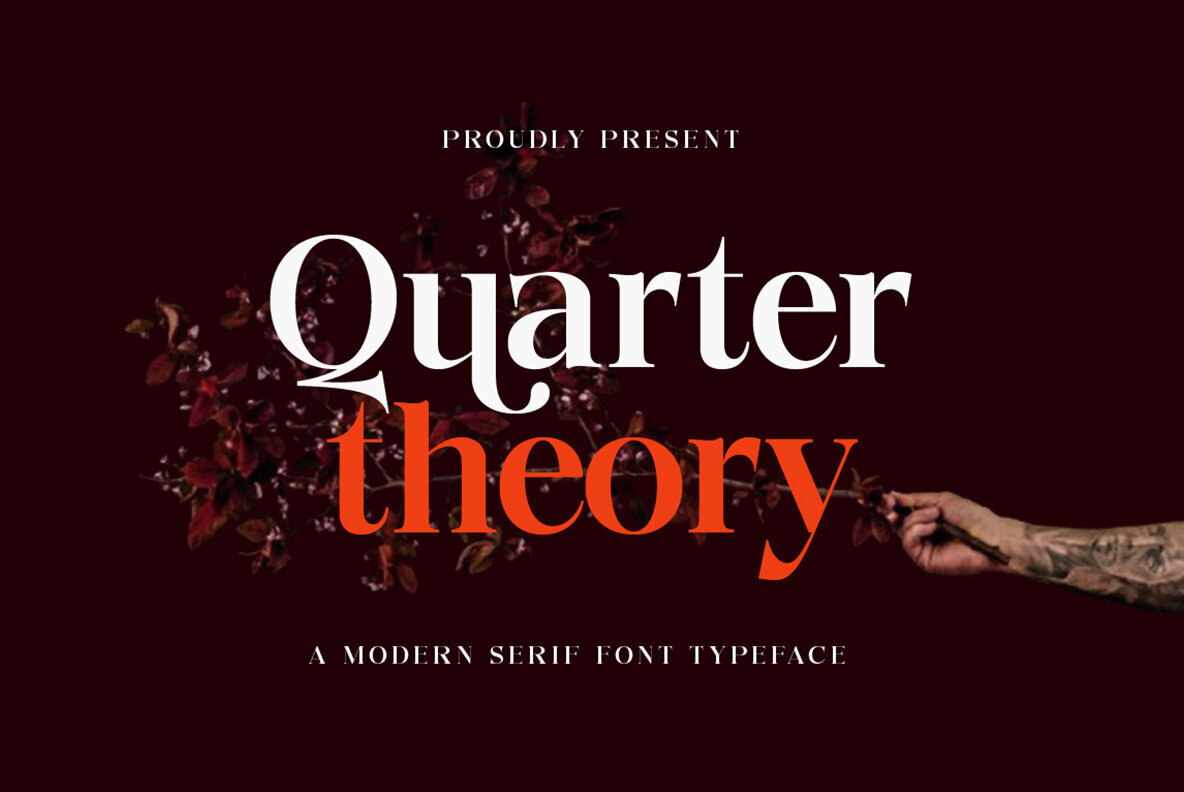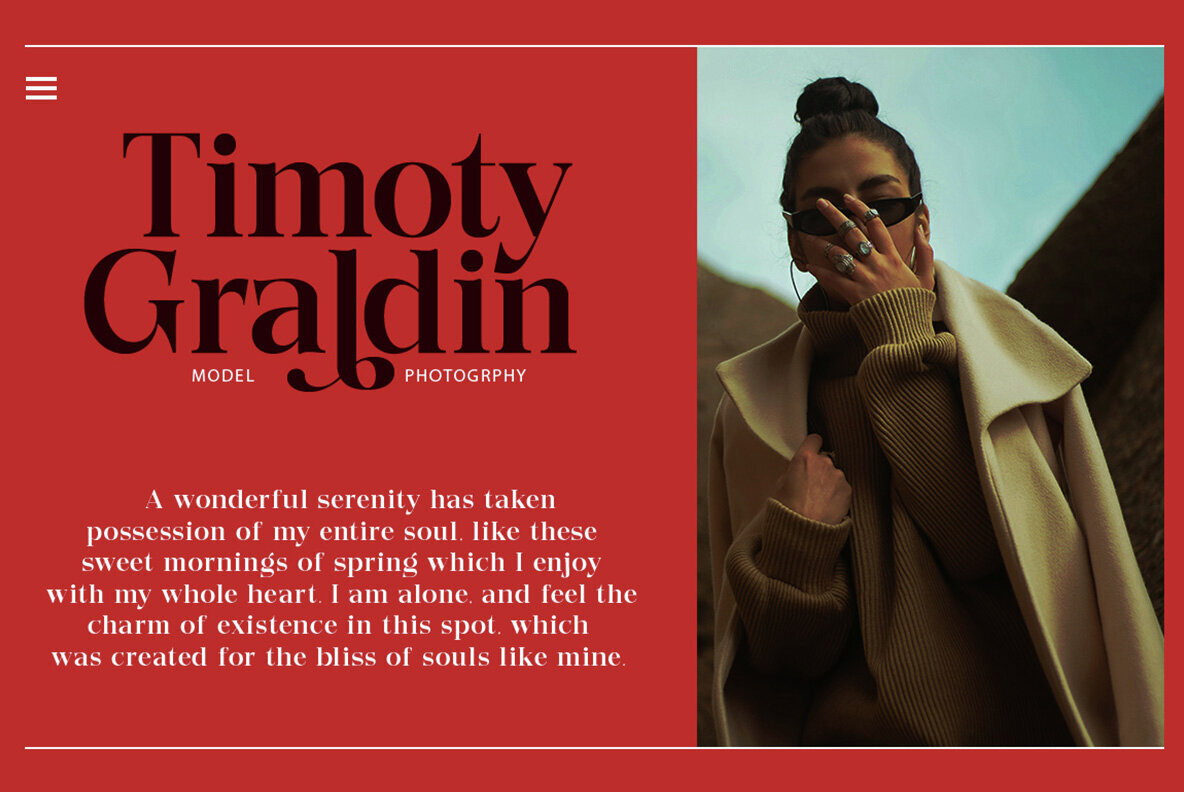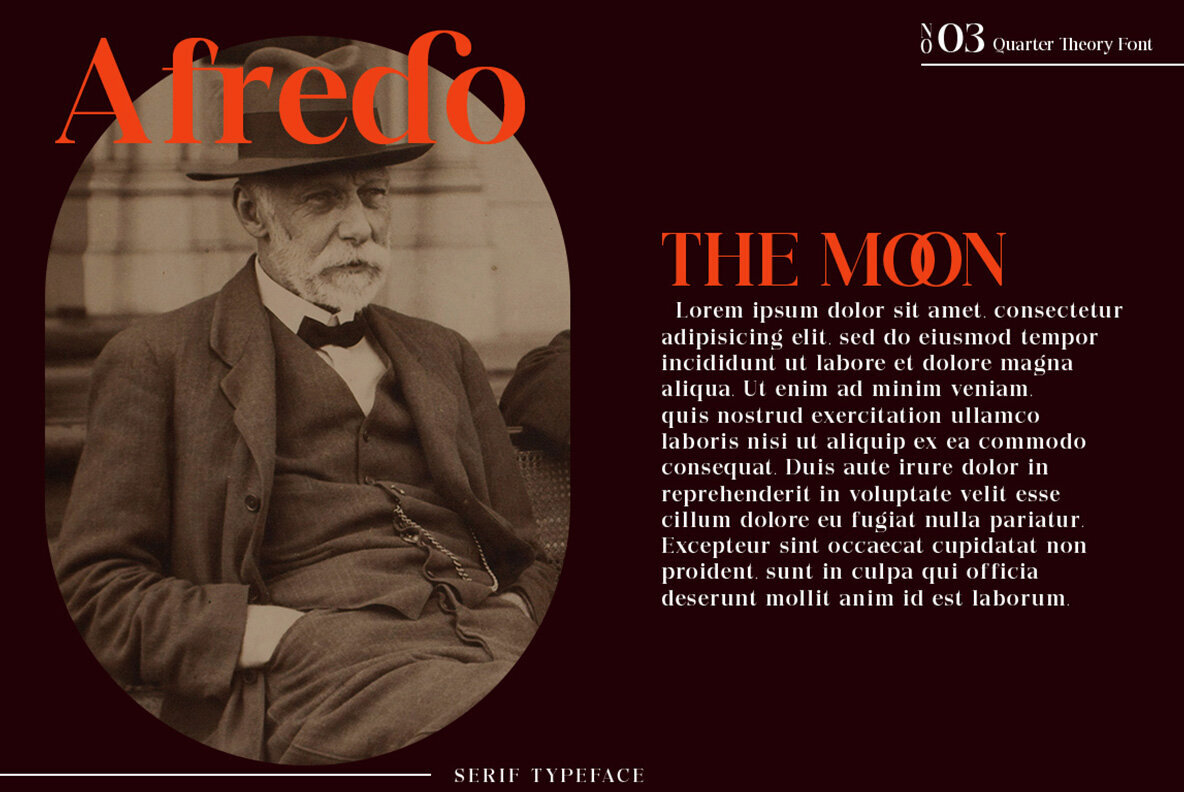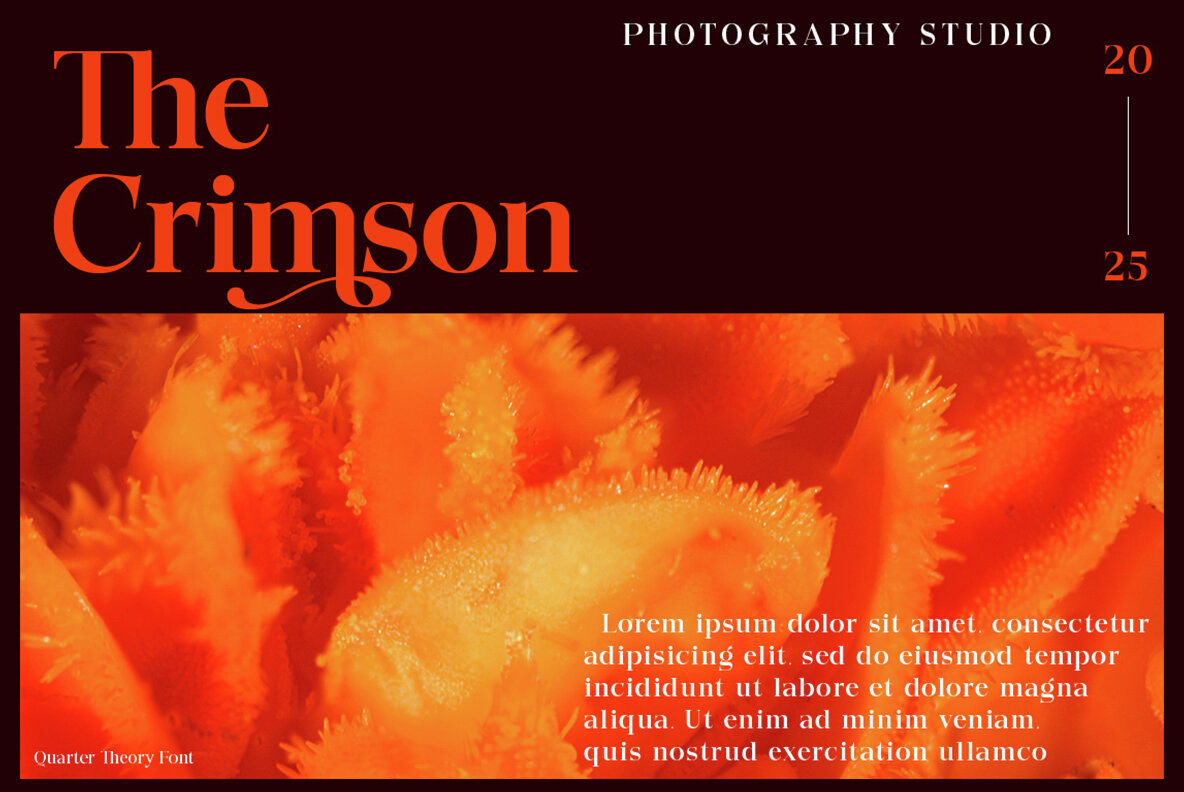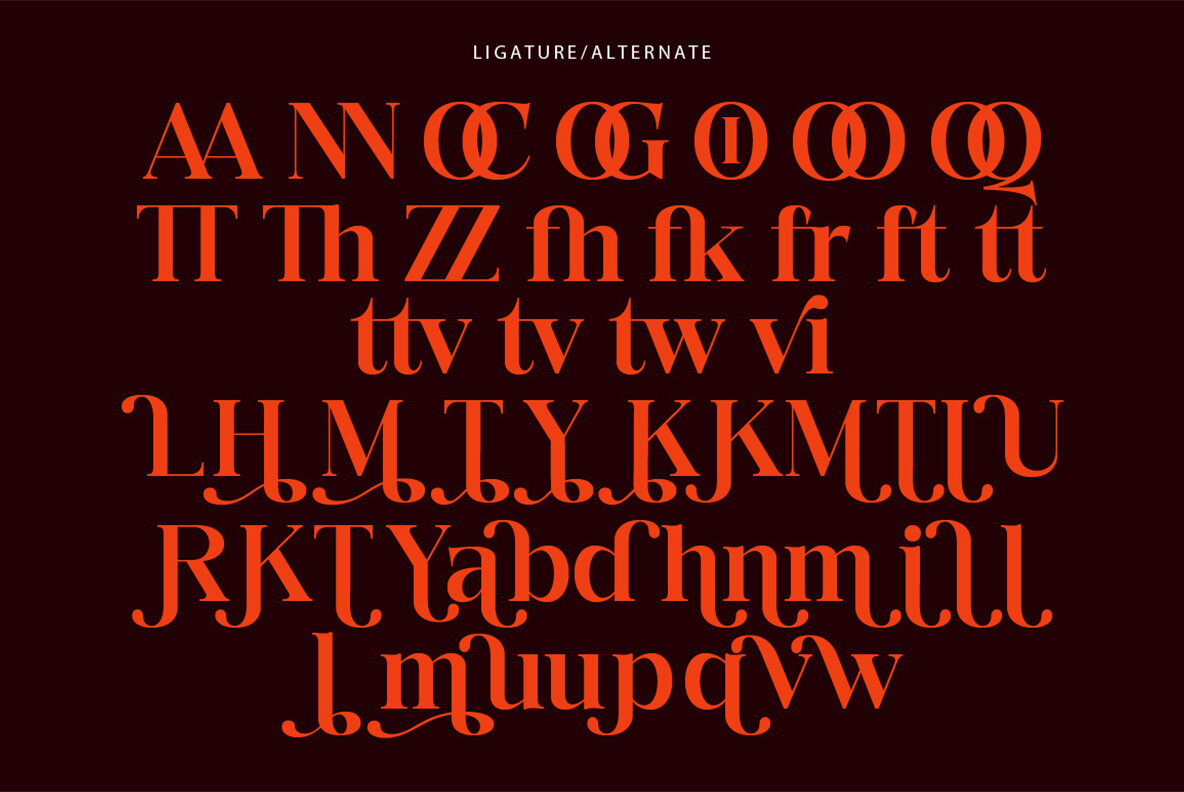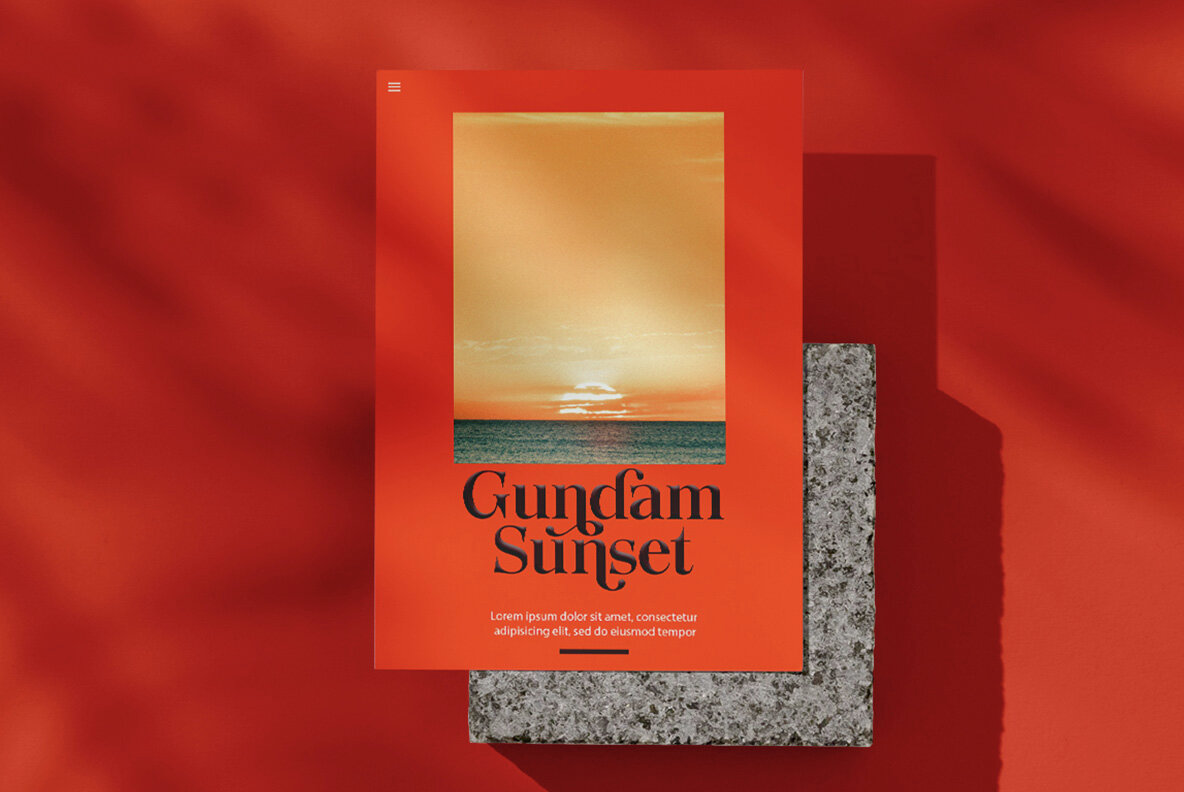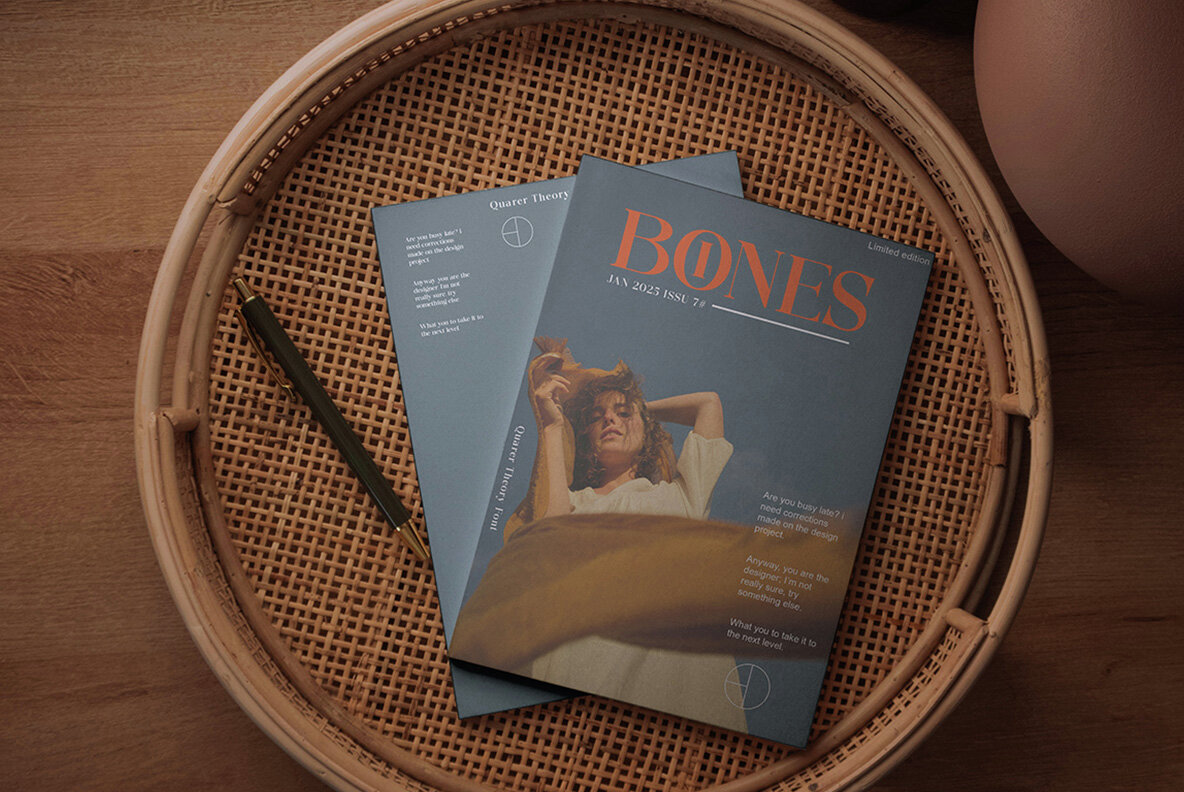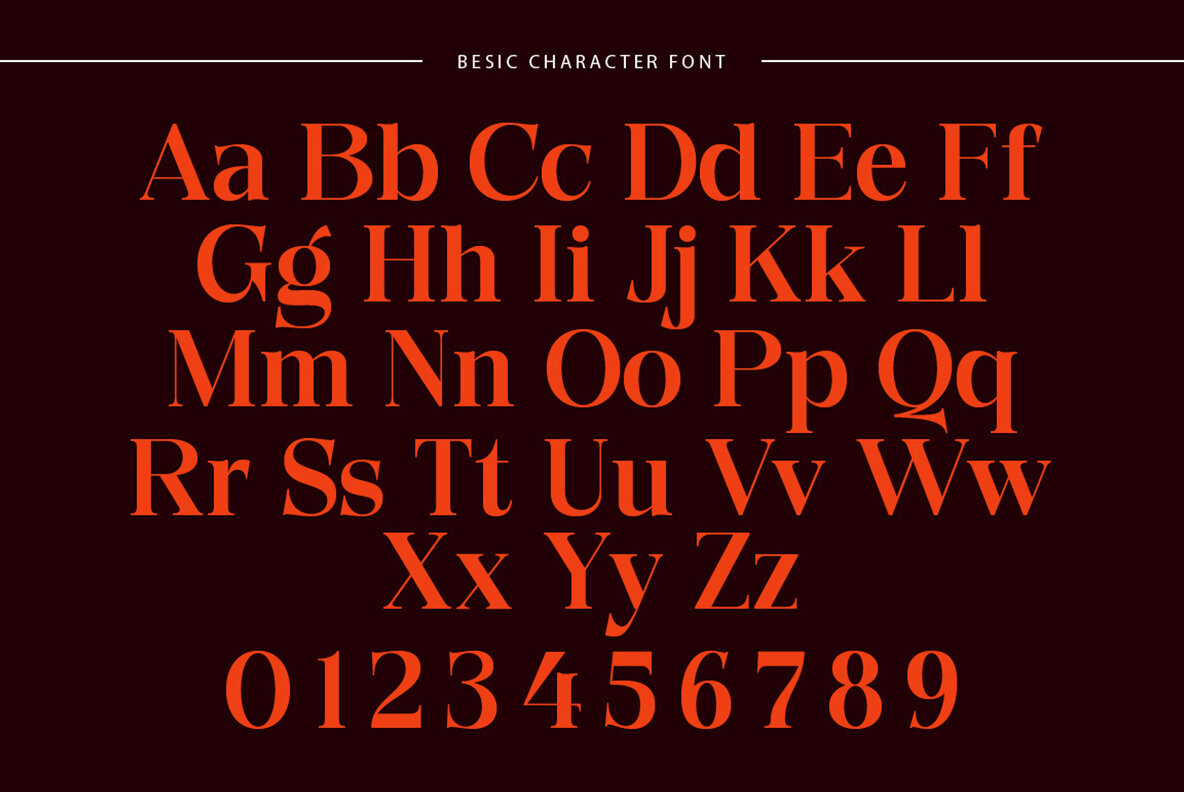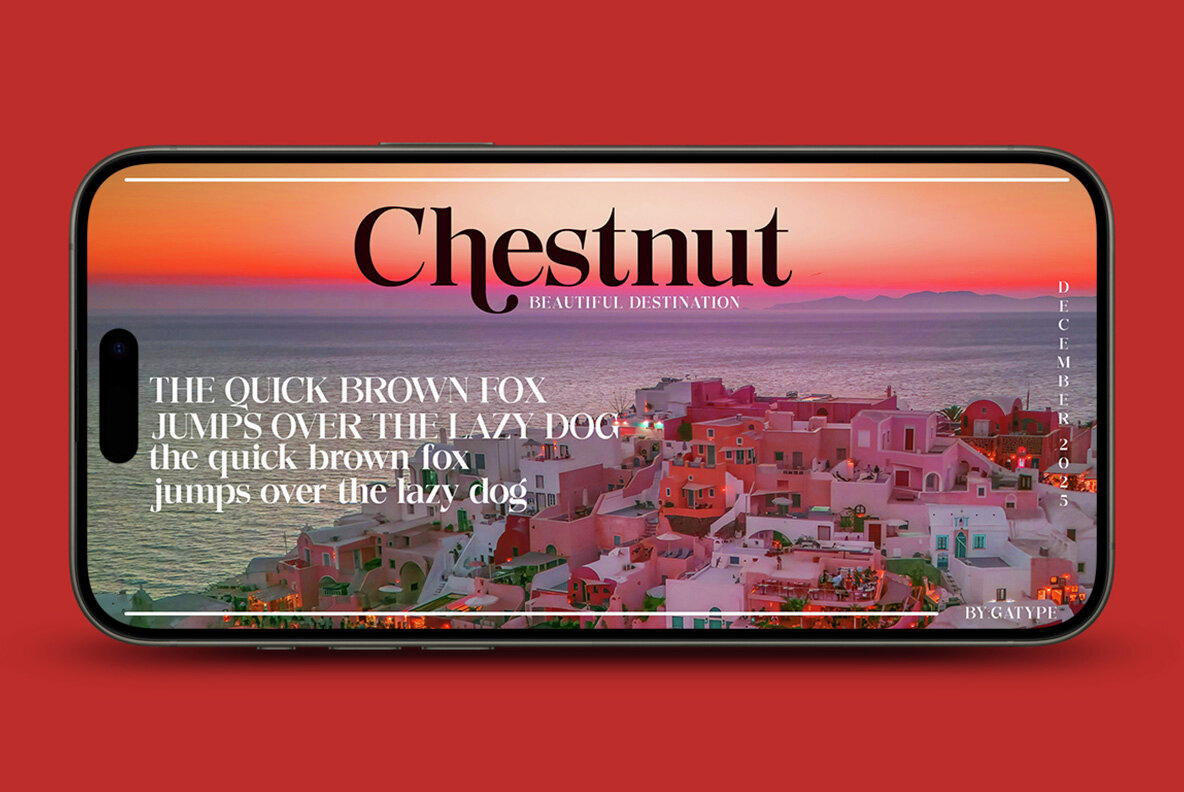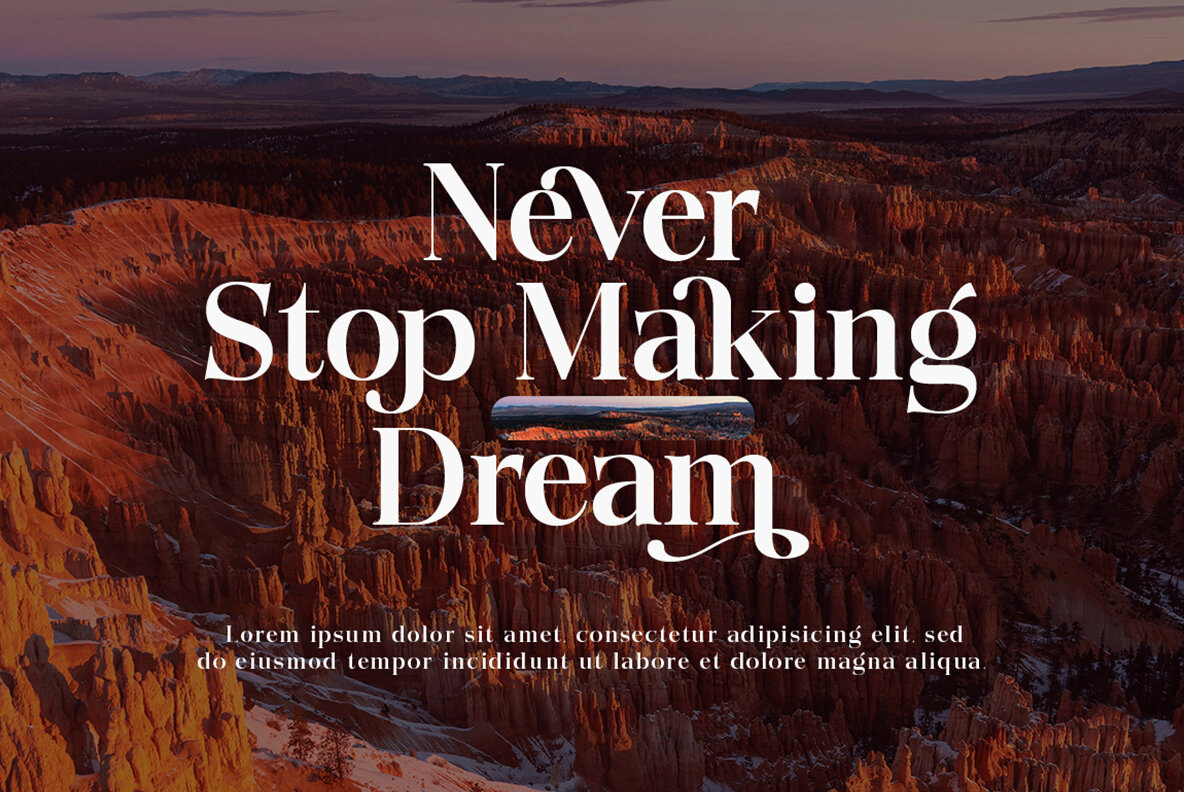
Quarter Theory Font
Quarter Theory Regular
Quarter Theory is a serif typeface that embodies elegance and sophistication with its classic design. Its standout feature, the small decorative strokes known as serifs, provides a luxurious touch, ideal for editorial design, branding, and creative projects seeking a professional aesthetic. This typeface is particularly effective for headlines, logos, and visual elements that require a commanding presence and strong visual impact.